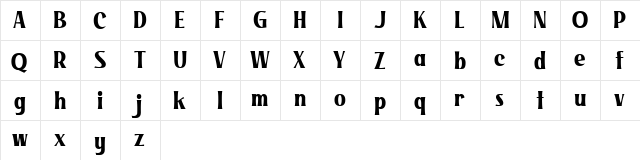
Painkiller - Demo Regular
| Foundry | Postype |
| Designer | Dimas Aditya WIcaksana |
Design Context for Painkiller - Demo Typeface
Painkiller - Demo offers clean, dependable letterforms without strong stylistic allegiance, making it a practical choice for designers who need flexibility.
Pro Tip: Use Painkiller - Demo in both headline and body roles to test its range before committing to a single application.